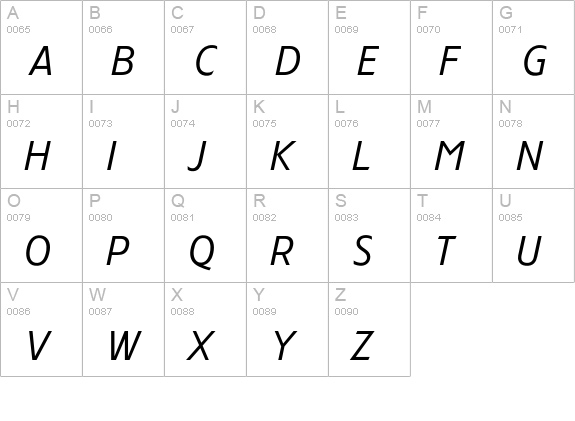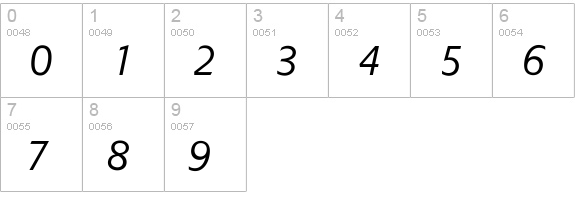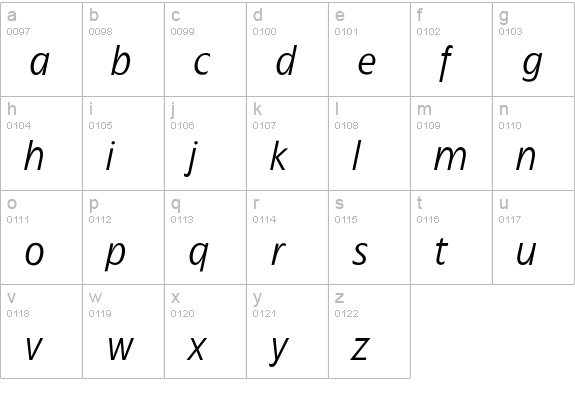
TFForever-Italic is a distinctive, italic variant in the TFForever typeface family \xE2\x80\x94 well suited to design and typography projects.
TFForever-Italic font is a stunning display of elegance and style. Its sleek and graceful strokes exude a timeless charm that is sure to captivate any viewer. The italic design adds a touch of sophistication, making it perfect for projects that require a touch of class. What sets TFForever-Italic font apart is not just its exquisite design, but also the fact that it is freely available to download at FontsMarket.com. This means that you can add this beautiful font to your collection without spending a dime. Whether you are a professional designer or a casual enthusiast, having access to high-quality fonts for free is a game-changer. The versatility of TFForever-Italic font is another reason why it is a must-have. It can effortlessly elevate any project, from logos and branding materials to invitations and posters. Its thin and flowing letterforms add a sense of delicacy and refinement, making it perfect for projects that require a touch of elegance. Using TFForever-Italic font is a breeze. Its well-crafted characters ensure legibility at any size, while its smooth curves and balanced proportions create a harmonious visual experience. Whether you choose to use it for headlines or body text, TFForever-Italic font will bring a touch of sophistication to any design. So, why wait? Enhance your designs with the timeless beauty of TFForever-Italic font. Download it for free at FontsMarket.com and unlock a world of possibilities. Whether you are working on a personal project or a professional assignment, this font will undoubtedly leave a lasting impression. Don't miss out on this opportunity to add a touch of elegance to your designs, all at no cost to you.